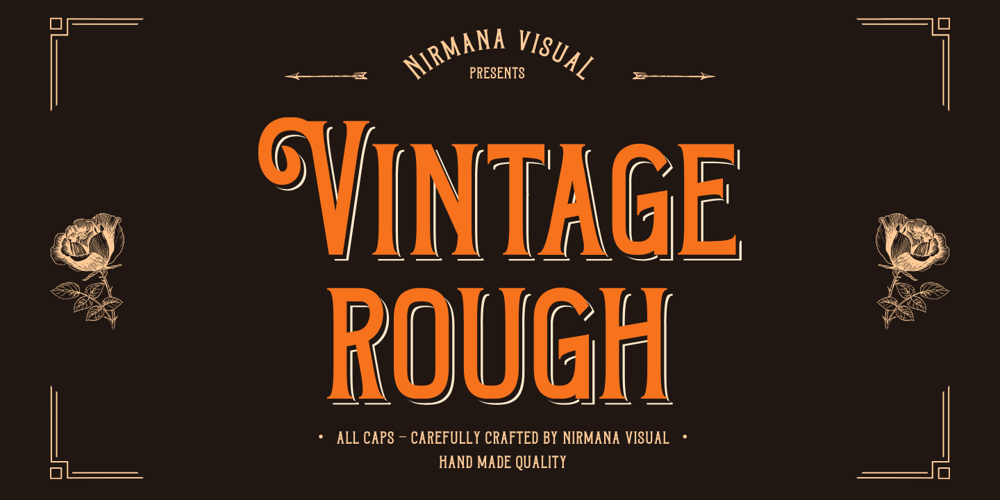
Vintage Rough Font Family was designed by Sigit Dwipa and published by Nirmana Visual. Vintage Rough contains 1 styles and family package options. Introducing Vintage Rough. A Vintage display font that has a classy, clean, and has dramatic movement.This font is great for your next creative project such as logos, quotes, invitations, product packaging, posters, and social. It is also great for watermarks on photography and product merchandise, or anything that needs a vintage taste.